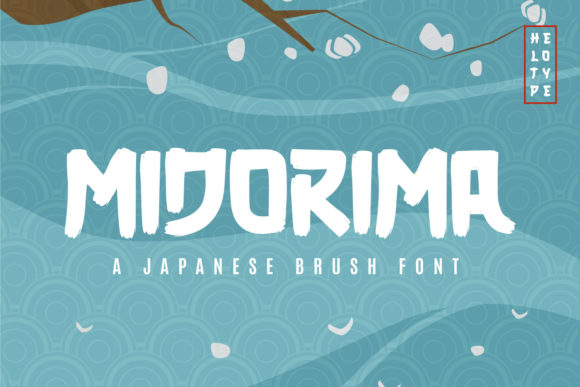
Journey into the realm of digital artistry with Midorima, a captivating display font that exudes a Japanese flair. This remarkable creation from Helotype is a visual symphony, harmonizing bold strokes with graceful curves, leaving a lasting impression on every design.
Picture your next food menu adorned with the elegance of Midorima. Each dish will sing with a unique charm, inviting diners to embark on a culinary adventure. Create poster flyers that ignite imaginations, capturing the essence of your events with a font that speaks volumes. Unleash your creativity in print projects, transforming ordinary text into mesmerizing expressions.
With Midorima as your font of choice, the possibilities are limitless. It's the perfect companion for projects that demand attention, a font that commands a presence without overpowering your message. Its bold strokes dance across the page, evoking emotions and leaving a lasting impact.
Midorima is more than just a collection of letters; it's an artistic statement, a window into a world of creativity. Its Japanese roots inspire a sense of tranquility and balance, while its modern twist adds a touch of intrigue. Whether you're a seasoned designer or just starting your journey, Midorima will elevate your designs to new heights.
Don't settle for ordinary fonts that blend into the background. Embrace the boldness of Midorima, a font that will make your designs shine. Imagine your projects adorned with its unique charm, captivating audiences and leaving them in awe.
Midorima is waiting to transform your creative visions into reality. Embrace its beauty, unleash your imagination, and let your designs speak for themselves. This is more than just a font; it's an experience that will redefine your creative process.